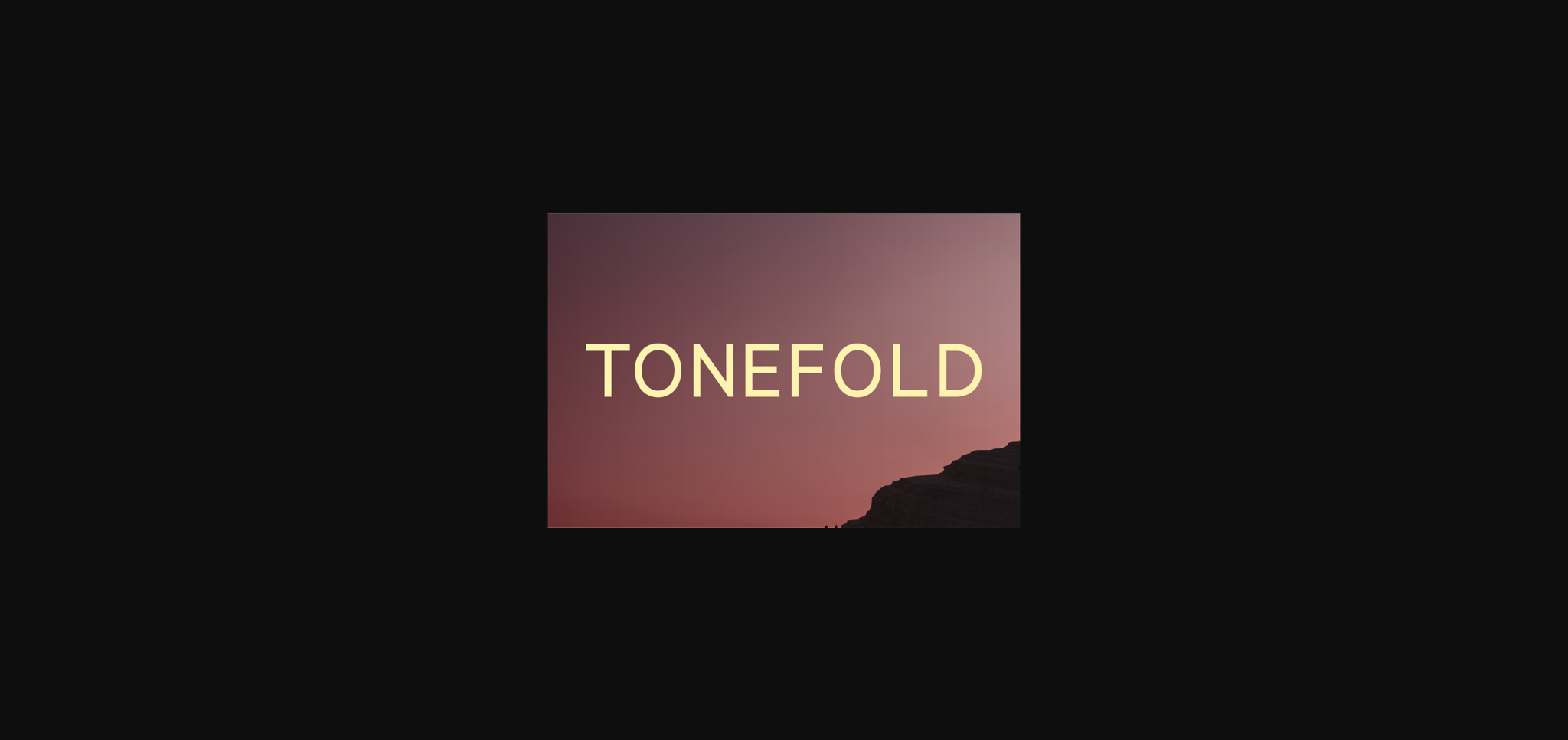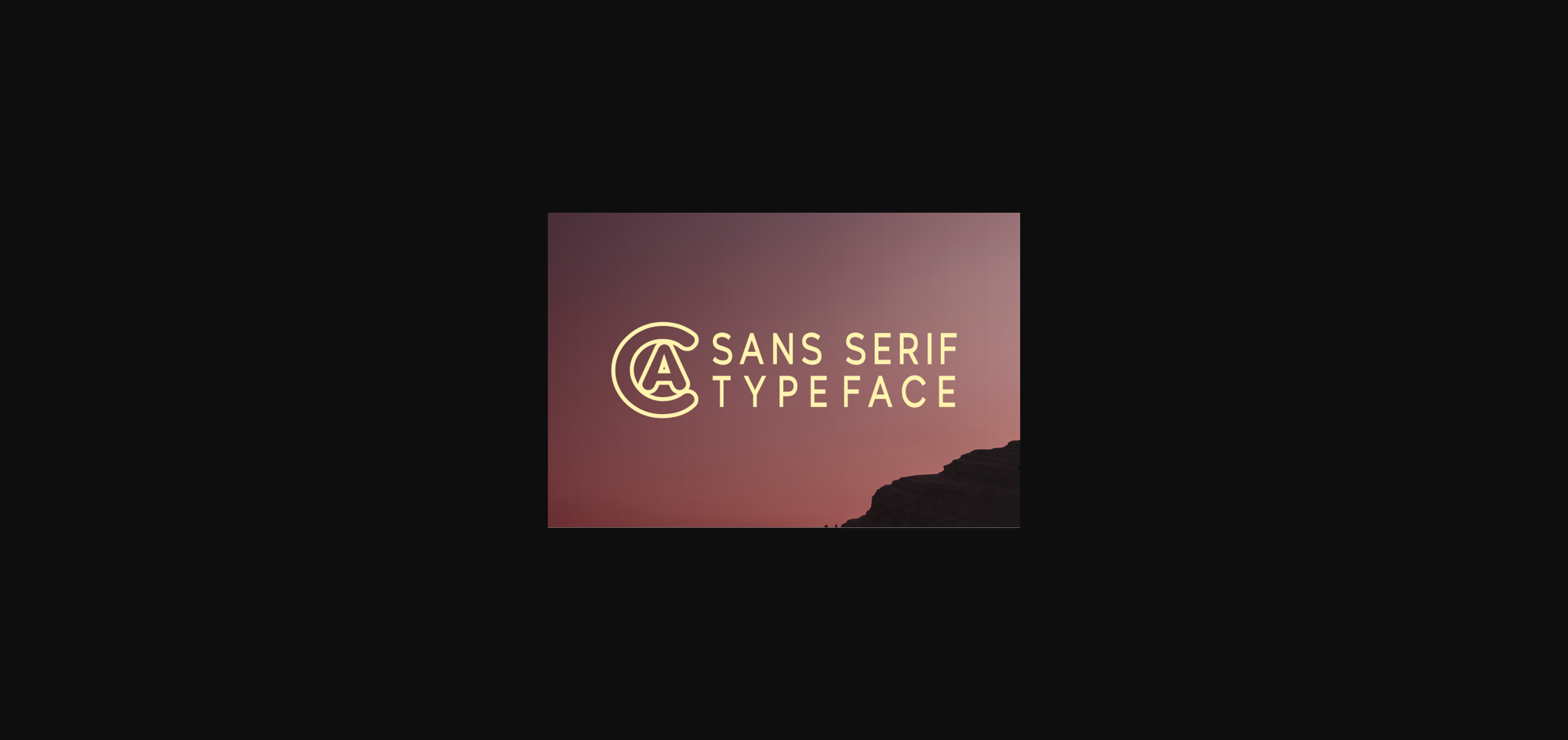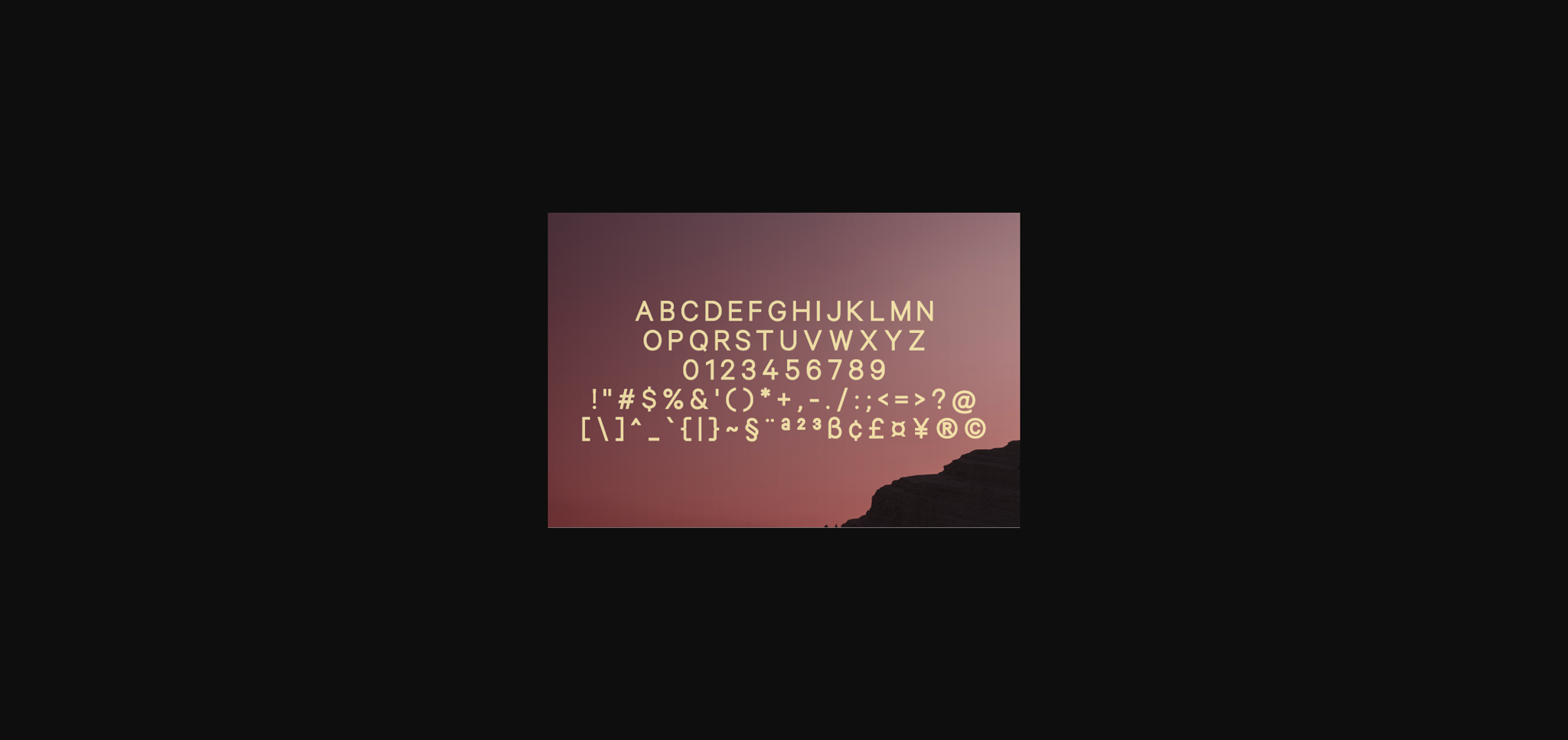
About Tonefold Font
Tonefold is a smooth sans serif font. It will complement any design need perfectly with its perfectly balanced mix of the smooth and sharp!